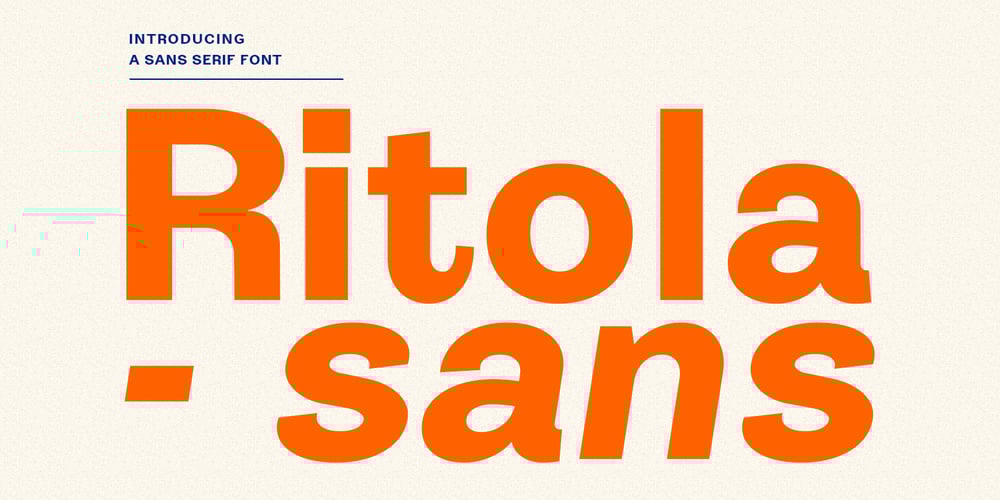
Ritola Font Family was designed by Gilang Maulana and published by Maulana Creative. Ritola contains 2 styles and family package options. Ritola is a display sans serif font. With regular stroke, fun character with a bit of ligatures and alternates. To give you an extra creative work. Ritola font support multilingual more than 100+ language. This font is good for logo design, Social media, Movie Titles, Books Titles, a short text even a long text letter and good for your secondary text font with sans or serif. Make a stunning work with Ritola font. Cheers, Maulana Creative